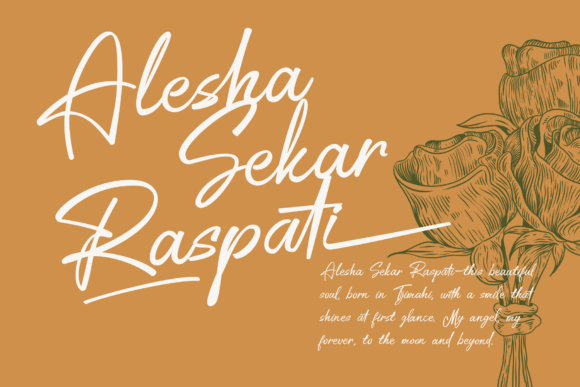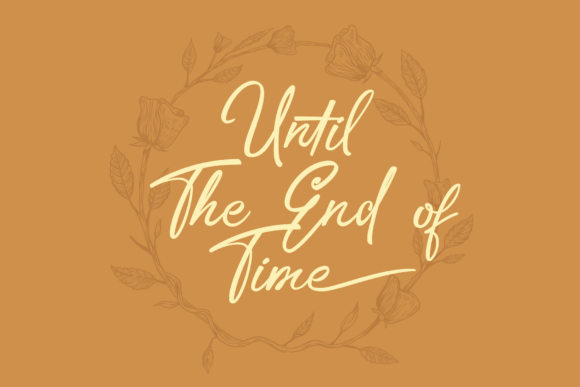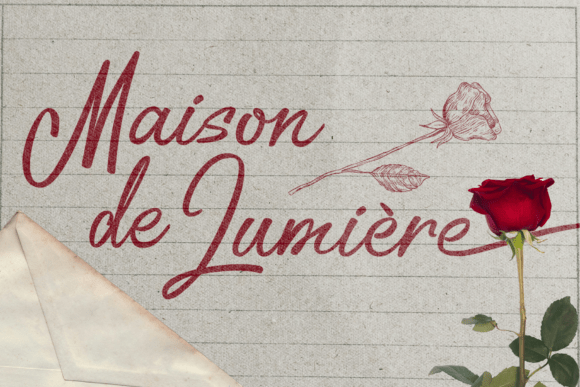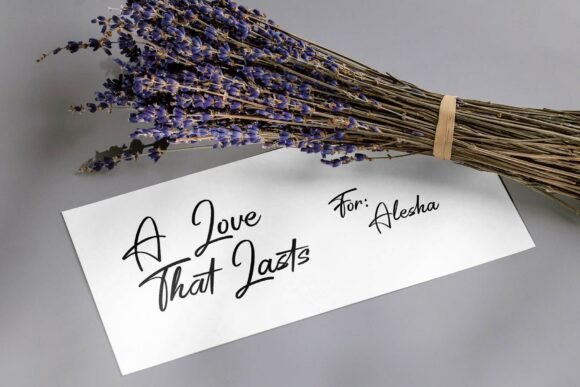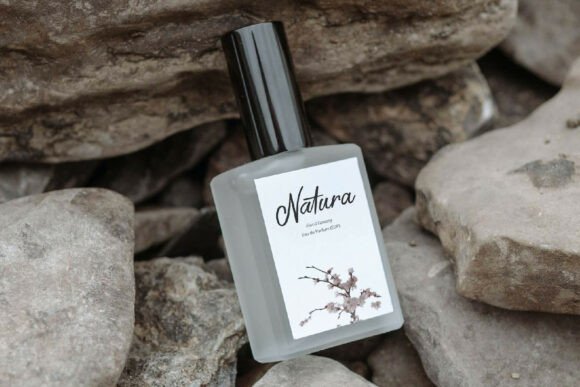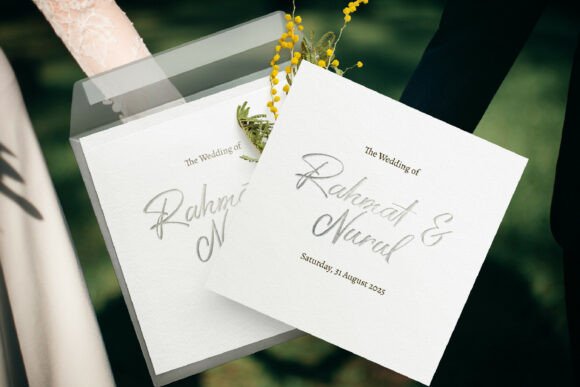
Ceylonite Font: Elevate Your Designs with Elegant Handwriting Script
In the world of typography, a good font can make all the difference in bringing your designs to life. If you’re looking for a stylish and elegant handwriting script font that adds a touch of personality to your creations, look no further than Ceylonite. Inspired by natural hand-lettering, Ceylonite is the perfect choice for designers and crafters seeking to add a warm, handwritten charm to their projects.
What is Ceylonite Font?
Ceylonite is a beautifully crafted handwriting script font that exudes elegance and sophistication. Its unique and authentic style makes it an excellent choice for a wide range of design applications, from branding and wedding invitations to quotes, packaging, and social media graphics. With its natural, hand-lettered feel, Ceylonite adds a touch of warmth and personality to any design.
Key Features of Ceylonite Font
So, what sets Ceylonite apart from other fonts? Here are some of its key features:
- Alternates: Ceylonite comes with a range of alternate characters, allowing you to mix and match letters to create a unique and authentic look.
- Ligatures: The font includes ligatures, which help to create a natural, flowing script that mimics handwriting.
- Swooshes: Add a touch of flair to your designs with Ceylonite’s swooshes, perfect for adding a decorative element to your text.
Use Cases for Ceylonite Font
Ceylonite is a versatile font that can be used in a wide range of design applications, including:
- Branding: Create a unique and memorable brand identity with Ceylonite’s elegant script font.
- Wedding Invitations: Add a touch of romance and sophistication to your wedding stationery with Ceylonite.
- Quotes: Make your quotes stand out with Ceylonite’s beautiful, handwriting script font.
- Packaging: Elevate your packaging designs with Ceylonite’s unique and eye-catching font.
- Greeting Cards: Add a personal touch to your greeting cards with Ceylonite’s warm and inviting font.
- Social Media Graphics: Create stunning social media graphics with Ceylonite’s elegant script font.
Why Choose Ceylonite Font?
So, why should you choose Ceylonite for your design projects? Here are just a few reasons:
- Elegant and Sophisticated: Ceylonite’s elegant script font adds a touch of sophistication to any design.
- Unique and Authentic: With its natural, hand-lettered feel, Ceylonite creates a unique and authentic look that’s sure to stand out.
- Versatile: Ceylonite can be used in a wide range of design applications, from branding and wedding invitations to quotes and packaging.
In conclusion, Ceylonite is a stylish and elegant handwriting script font that’s perfect for designers and crafters seeking to add a touch of personality to their designs. With its natural, hand-lettered feel, alternates, ligatures, and swooshes, Ceylonite offers endless creative possibilities for making your text look authentic and unique. Whether you’re designing for personal or commercial projects, Ceylonite is the perfect choice for adding a warm, handwritten charm and a professional finish.